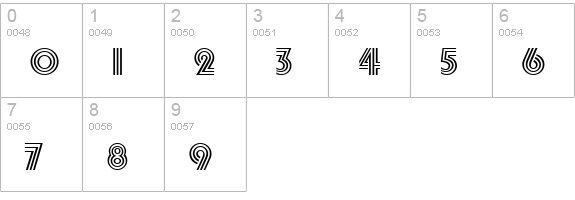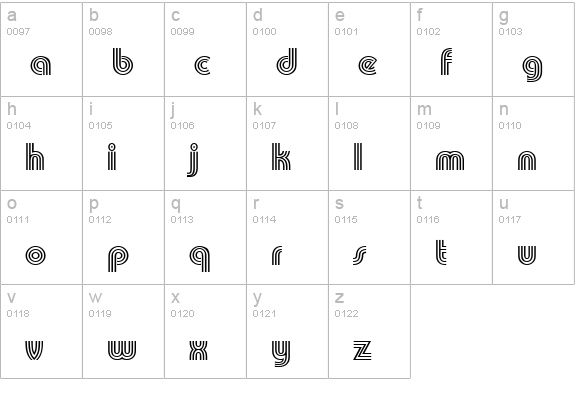
PowerLine Font Details
PowerLine font is a sleek and modern typeface that exudes sophistication and elegance. With its clean lines and contemporary style, PowerLine is perfect for a wide range of design projects, from branding to editorial layouts. The font features a unique blend of sharp angles and smooth curves, giving it a distinct and eye-catching look. Best of all, PowerLine font is completely free to download at FontsMarket.com. This means you can add this stylish typeface to your collection without breaking the bank. Whether you're a designer looking to elevate your projects or a creative enthusiast searching for a fresh font to play with, PowerLine is a versatile option that won't disappoint. Download it today and add a touch of modern flair to your designs!